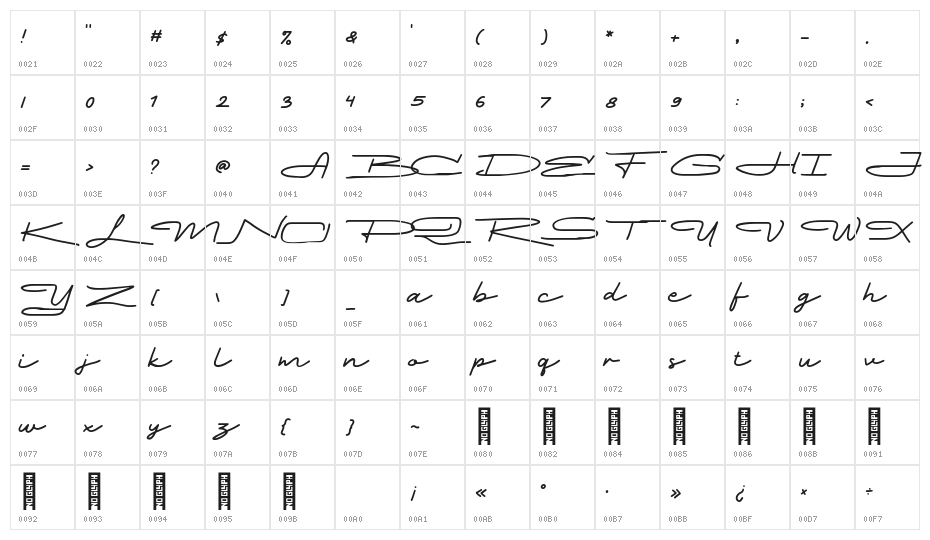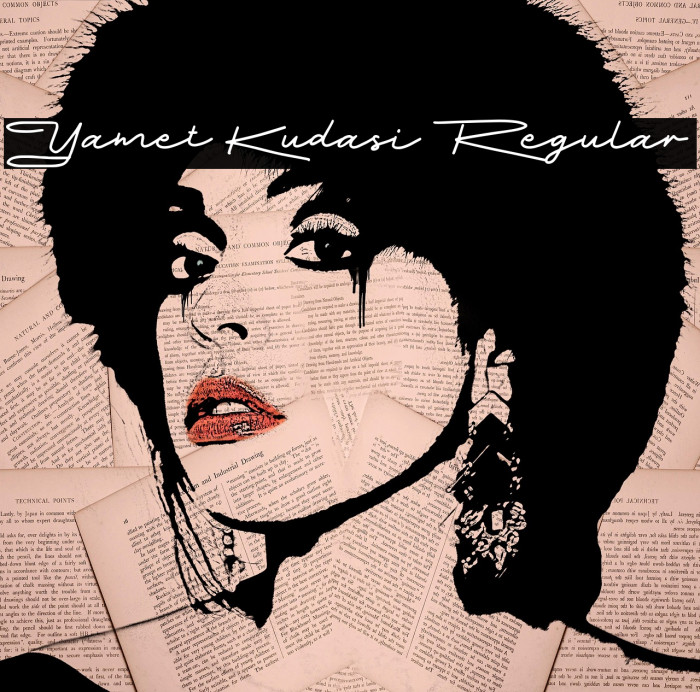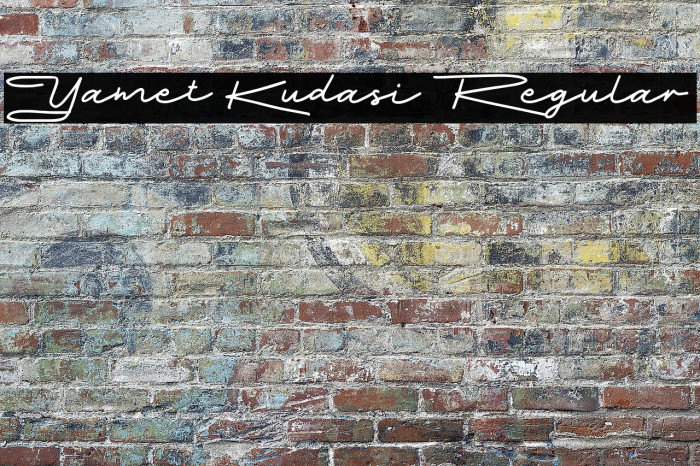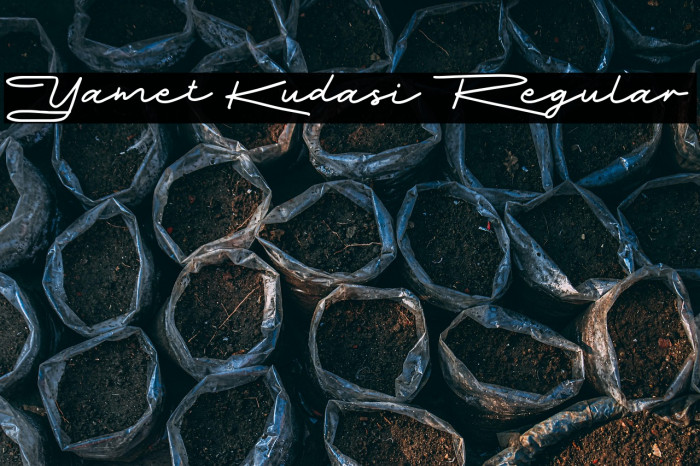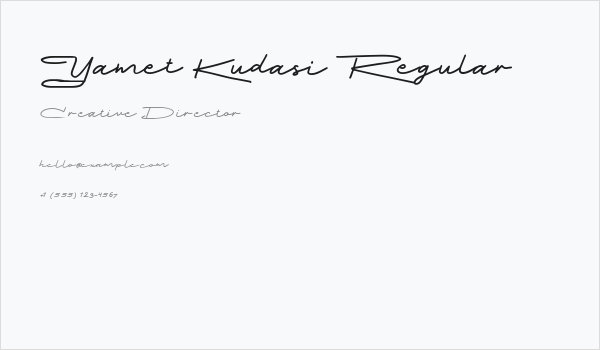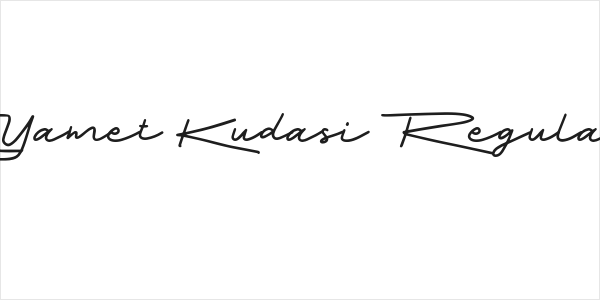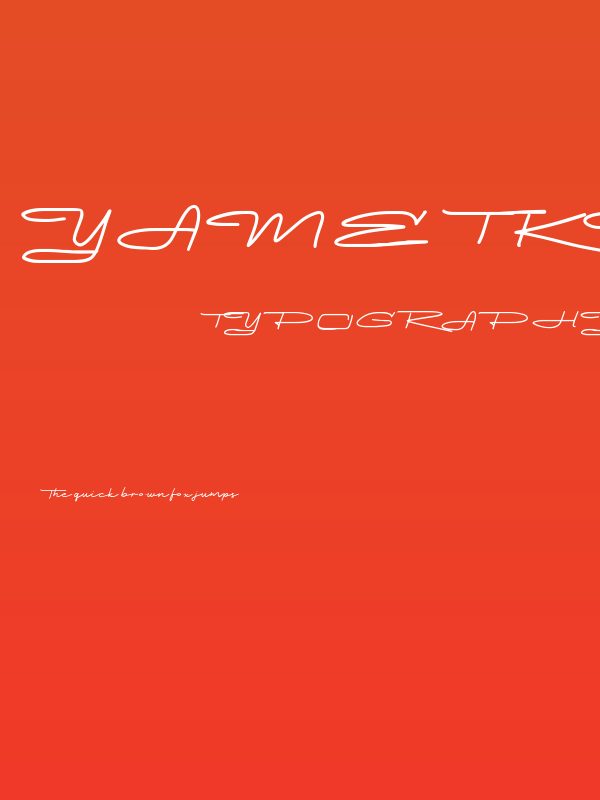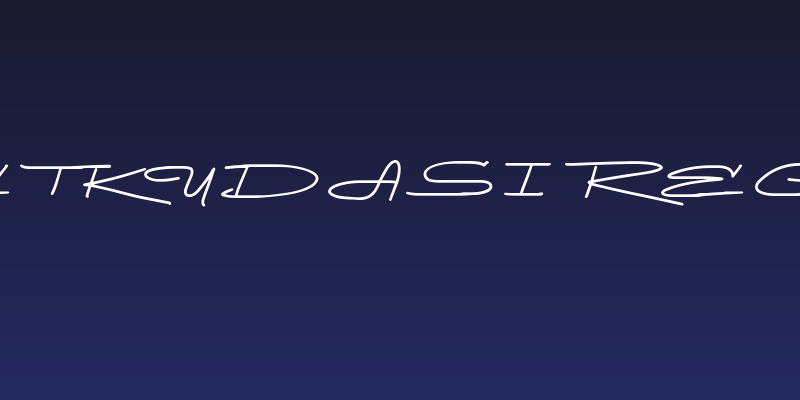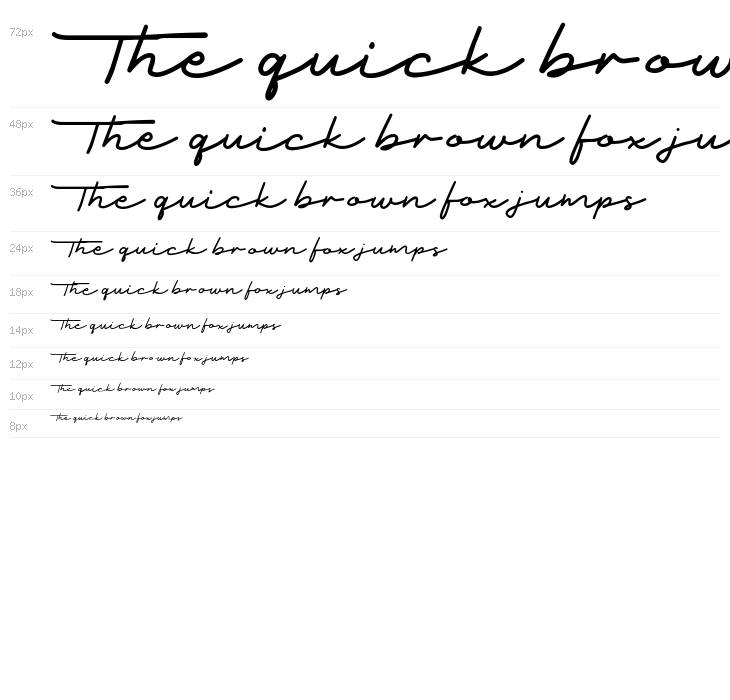
Yamet Kudasi Regular Font
Yamet Kudasi Regular Description
This font features a unique blend of elegance and modernity, characterized by its flowing, cursive style. The uppercase letters are elongated and slightly slanted, giving a sense of movement and grace. The lowercase letters maintain a consistent flow, with smooth curves and a natural handwritten appearance. The numerals are clear and legible, matching the overall aesthetic of the font. Special characters are thoughtfully designed to complement the letters, maintaining the font's cohesive look. This font is perfect for projects that require a personal touch, such as invitations, greeting cards, or branding materials.
| Overall Style | Modern, Elegant |
| Use Case | Headlines, Logos, Personal projects |
| Proposed Projects | Ideal for invitations, greeting cards, branding, and personal projects. |